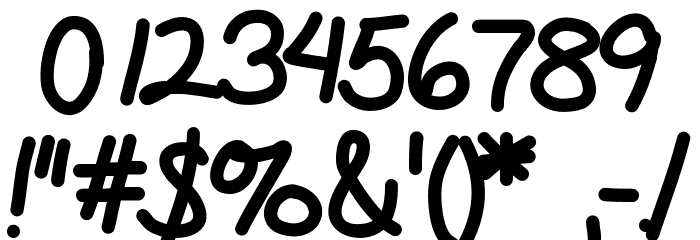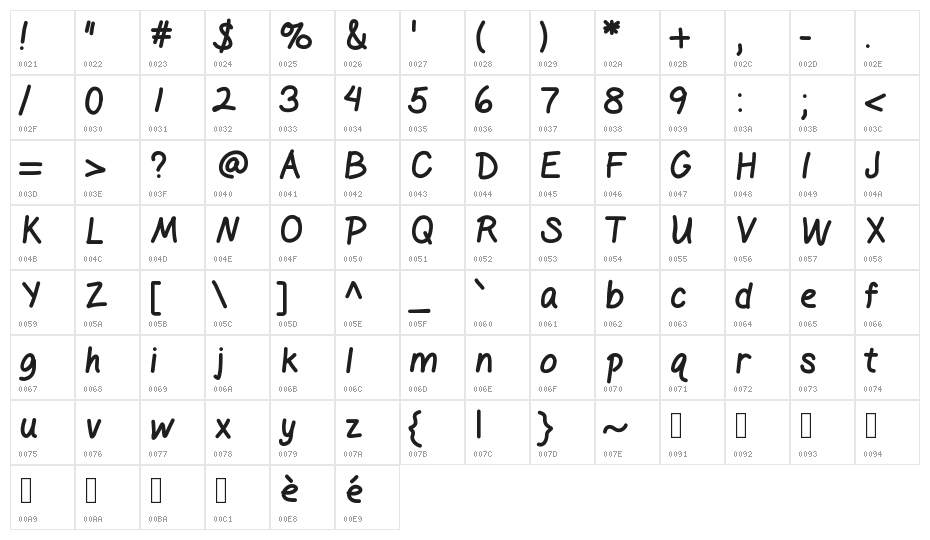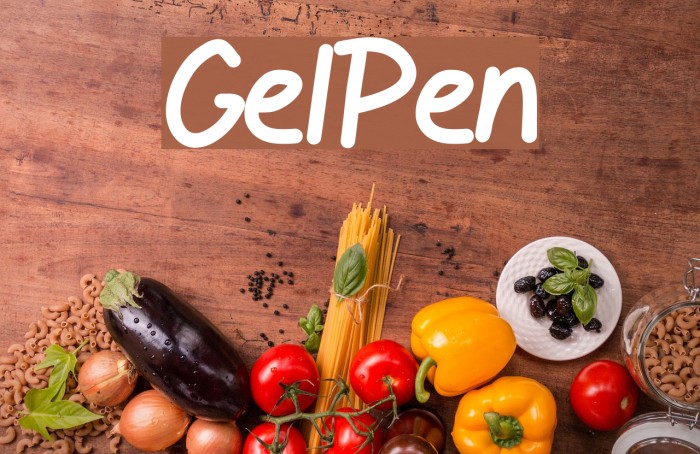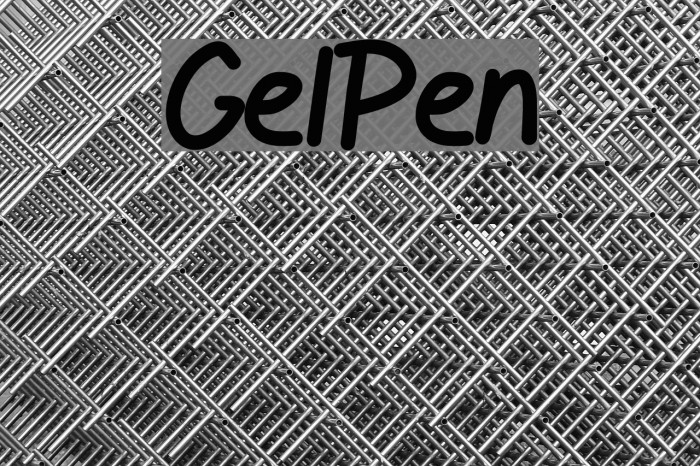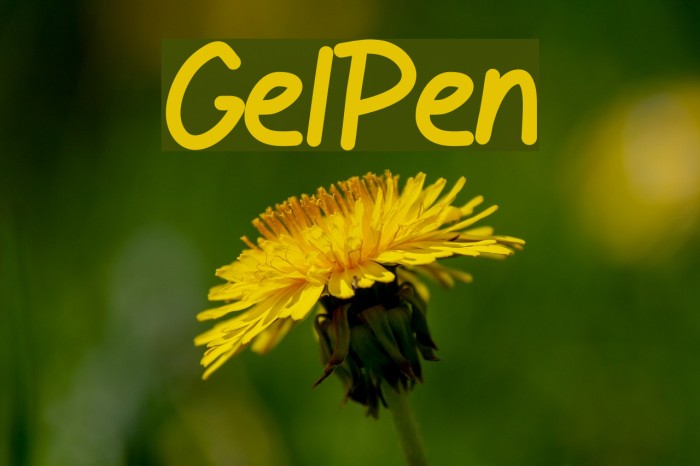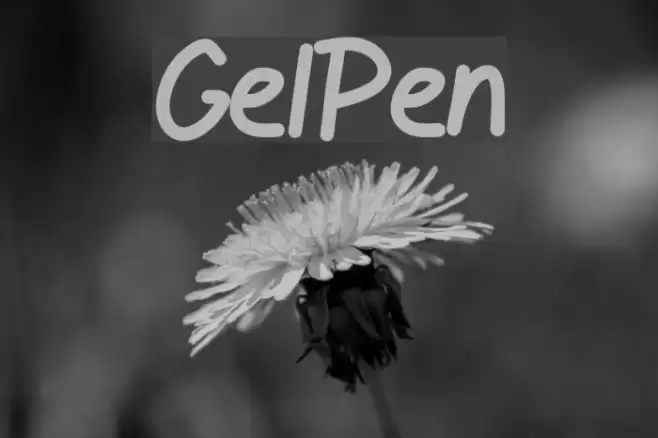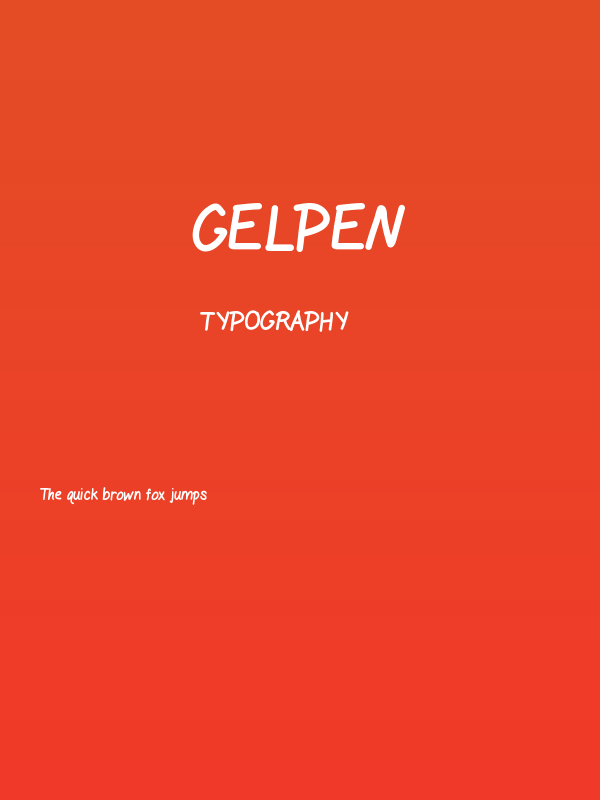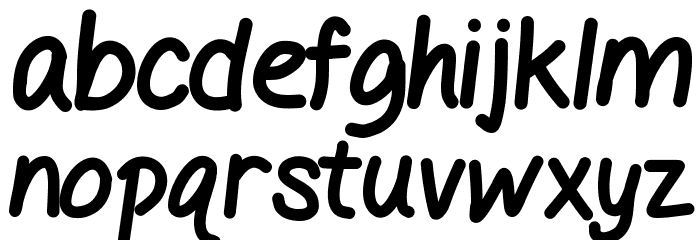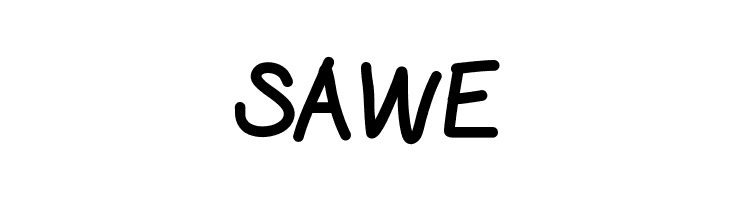
GelPen Font
GelPen Description
This font features a playful and casual handwritten style, reminiscent of writing with a gel pen. The characters are bold and rounded, giving a friendly and approachable appearance. The uppercase and lowercase letters maintain a consistent flow, with slightly exaggerated curves that add to the informal aesthetic. The numerals and special characters are designed to match the overall style, ensuring uniformity across all glyphs. This font is ideal for projects that require a personal touch, such as invitations, greeting cards, or informal branding materials. Its legibility and charm make it suitable for both digital and print media.